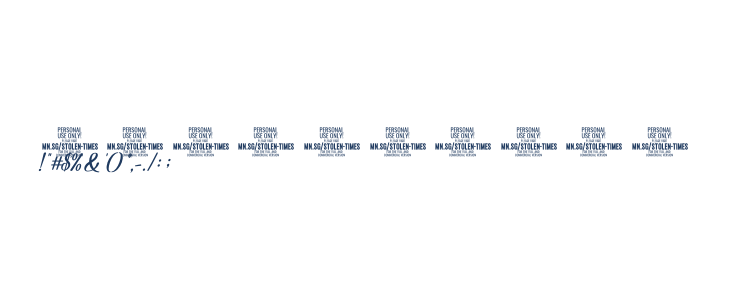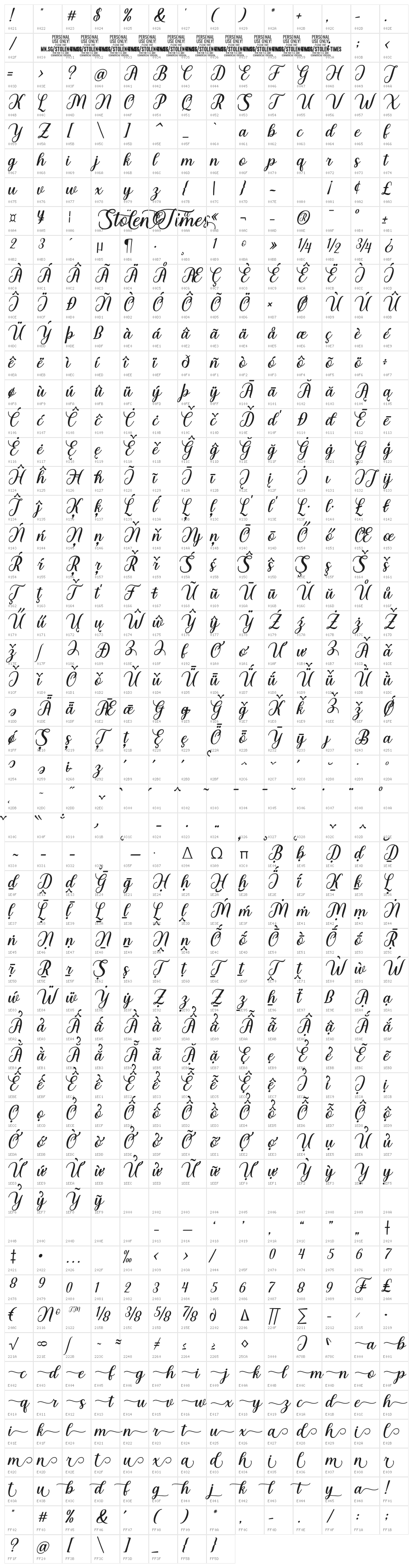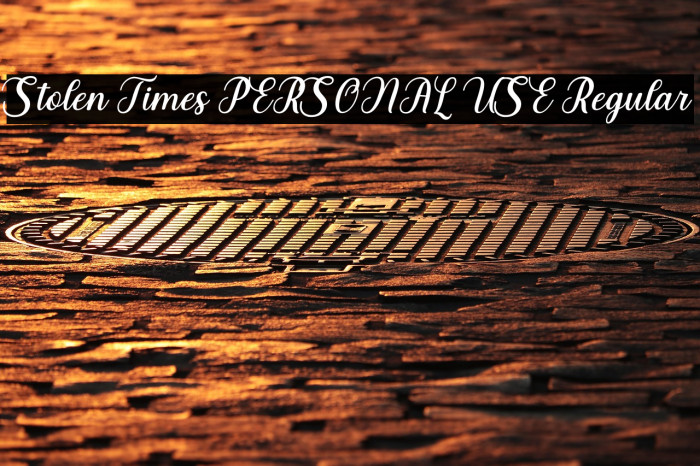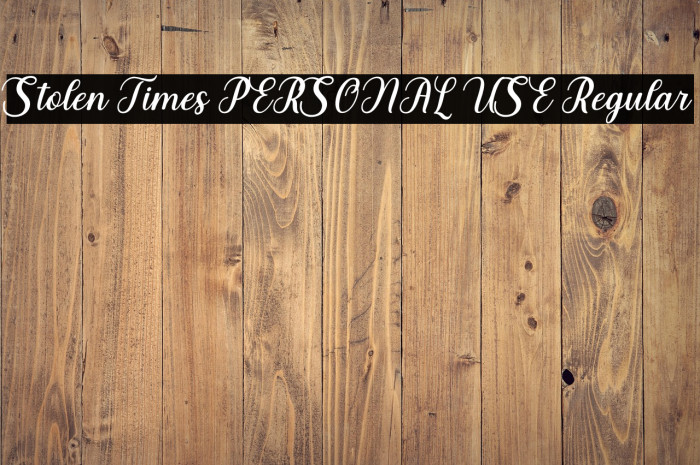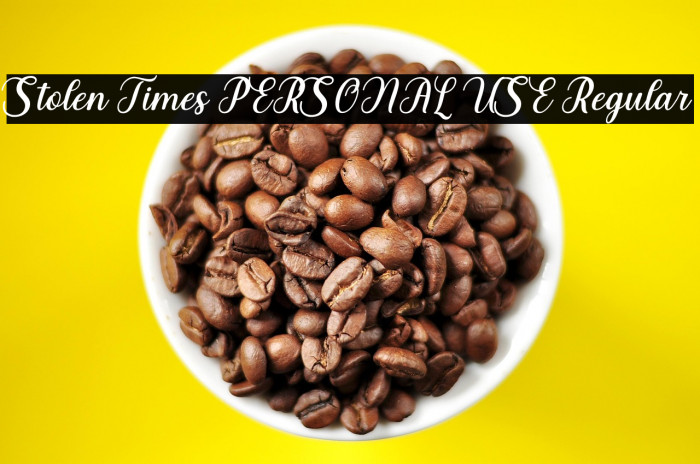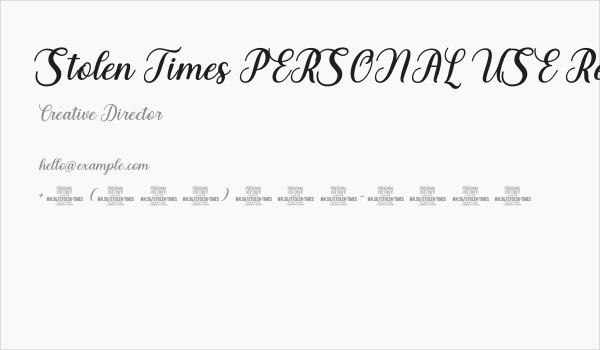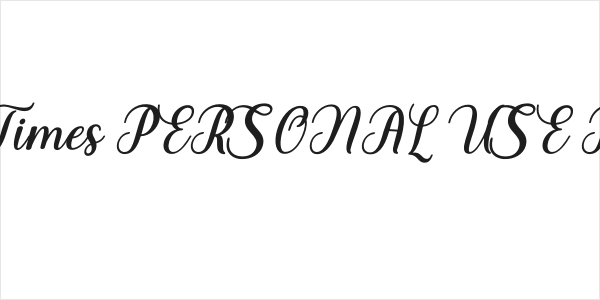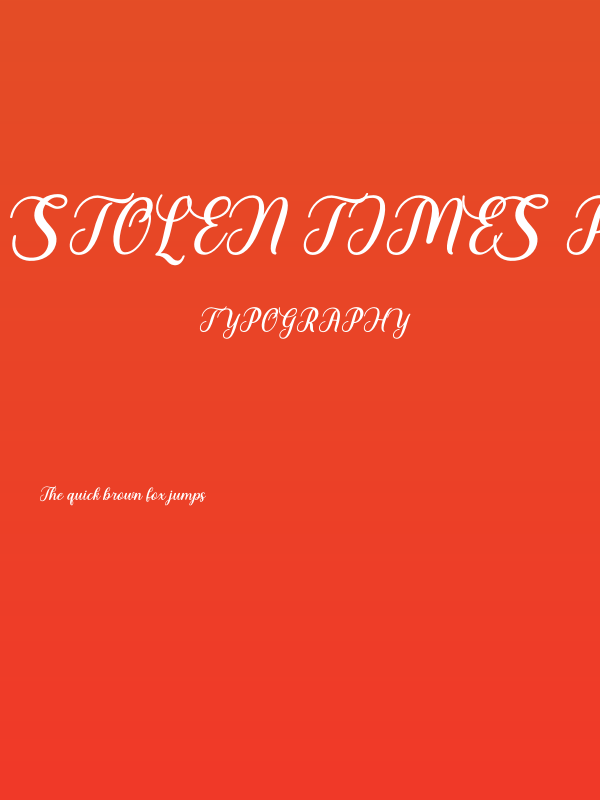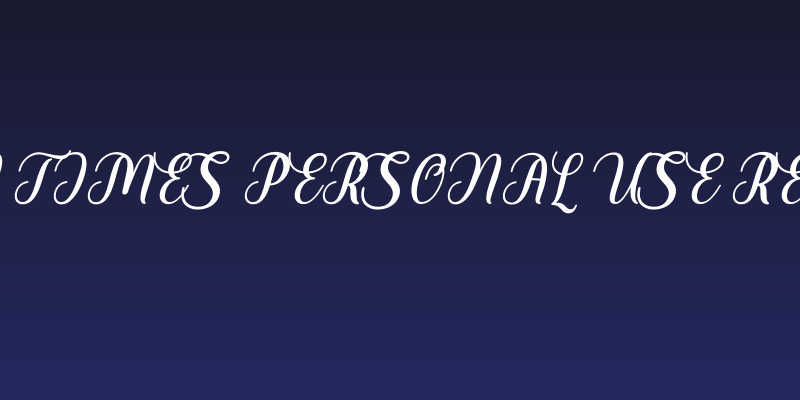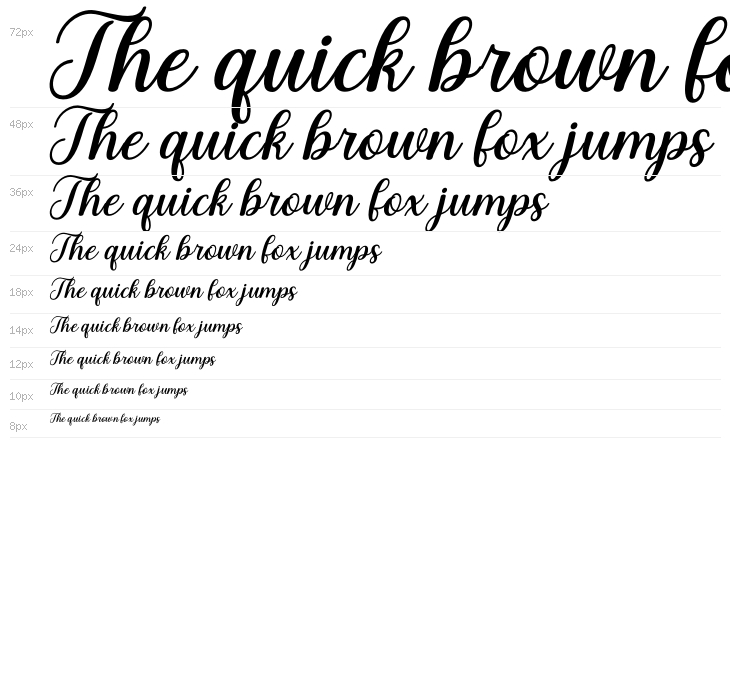
Stolen Times PERSONAL USE Regular Font
Stolen Times PERSONAL USE Regular Description
This font features an elegant script style with flowing, interconnected letters that exude a sense of sophistication and grace. The uppercase letters are ornate, with sweeping curves and loops that add a decorative flair, while the lowercase letters maintain a consistent rhythm and fluidity. The numerals and special characters are designed to complement the overall aesthetic, ensuring a cohesive look across all text. This font is perfect for projects that require a touch of elegance and refinement, such as wedding invitations, luxury branding, or high-end product packaging.
| Overall Style | Elegant, Decorative |